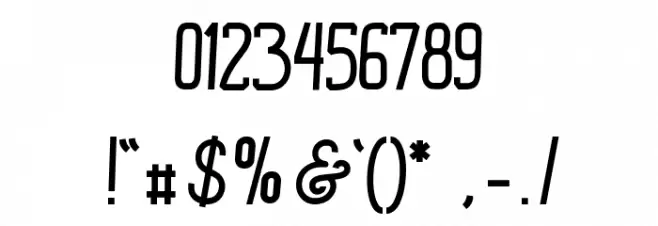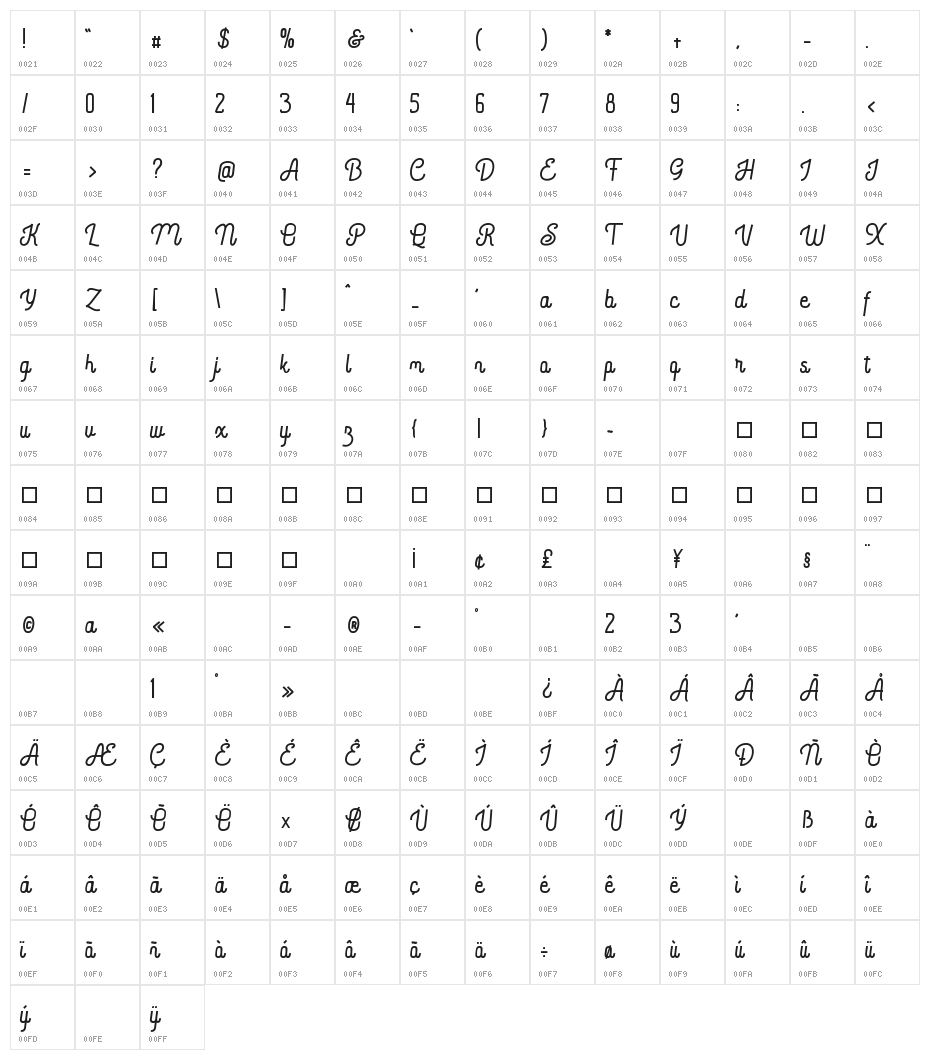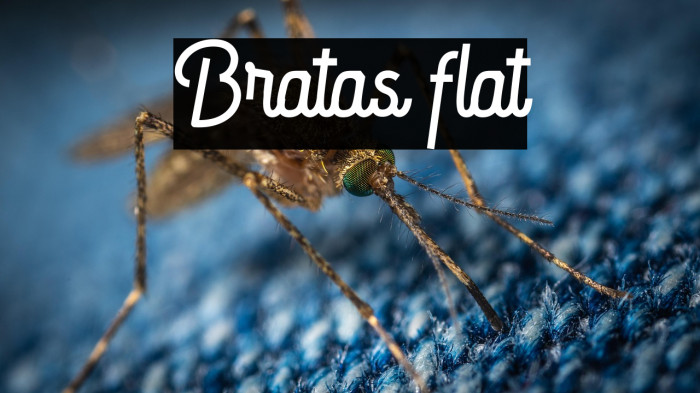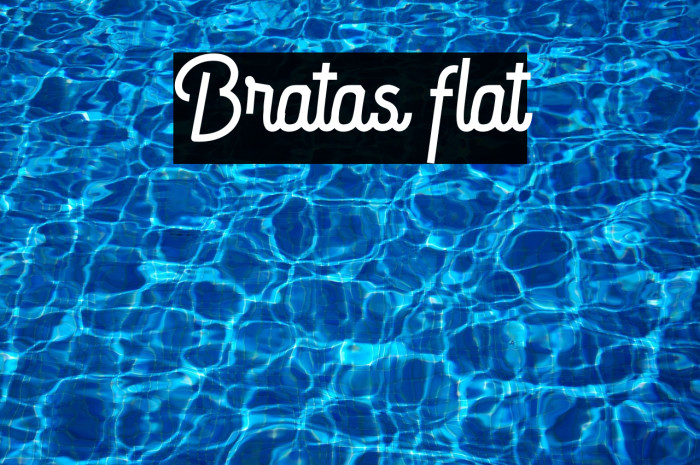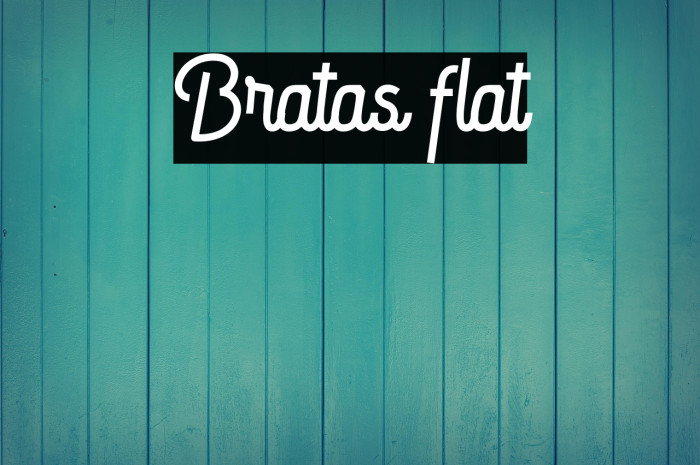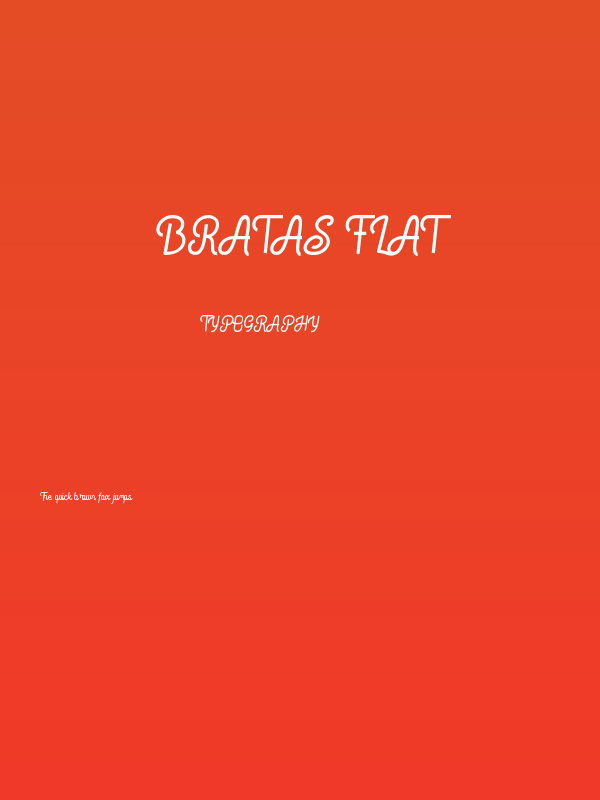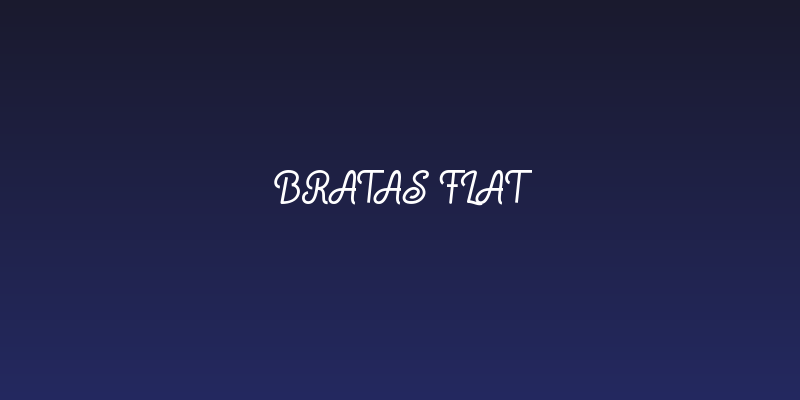
Bratas flat Font
Bratas flat Description
This font features a unique blend of script and decorative elements, characterized by its flowing, cursive style with a modern twist. The uppercase letters are particularly striking, with elegant loops and swirls that add a sense of movement and grace. The lowercase letters maintain a consistent style, offering a smooth transition between characters. The numerals are clear and distinct, maintaining the overall aesthetic of the font. Special characters are thoughtfully designed, complementing the letterforms with their own flair. This font's playful yet sophisticated style makes it versatile for various design projects.
A modern script font with decorative loops and elegant swirls from Uncategorized fonts.
- Proposed Projects: Ideal for wedding invitations, branding, logo design, and elegant packaging.
- Use Case: Logos, Invitations, Branding